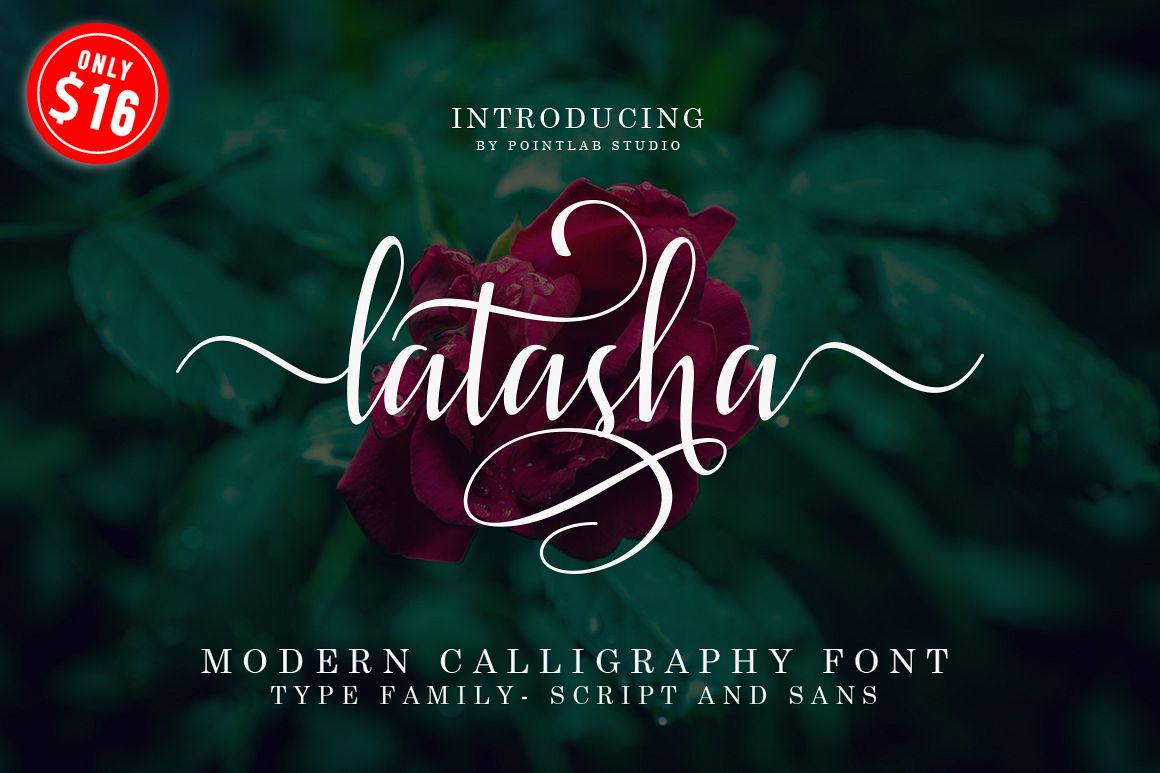
Latasha Font Family - 6 Font
IntroducingLatasha script a new fresh & modern script with a handmade calligraphy style, decorative characters and a dancing baseline! So beautiful on invitation like greeting cards, branding materials, business cards, quotes, posters, and more!!Latasha script come with 2245 glyphs +. The alternative characters were divided into several Open Type features such as Swash, Stylistic Sets, Stylistic Alternates, Contextual Alternates. The Open Type features can be accessed by using Open Type savvy programs such as Adobe Illustrator, Adobe InDesign, Adobe Photoshop Corel Draw X version, And Microsoft Word. And this Font has given PUA unicode (specially coded fonts). so that all the alternate characters can easily be accessed in full by a craftsman or designer.Latasha script :Uppercase & Lowercase International Languange & Symbols Support Punctuation & Number PUA Unicode Range Standard Stylistic Alternates Stylistic Set 1-99 Character Variant. The ZIP file are include the following :